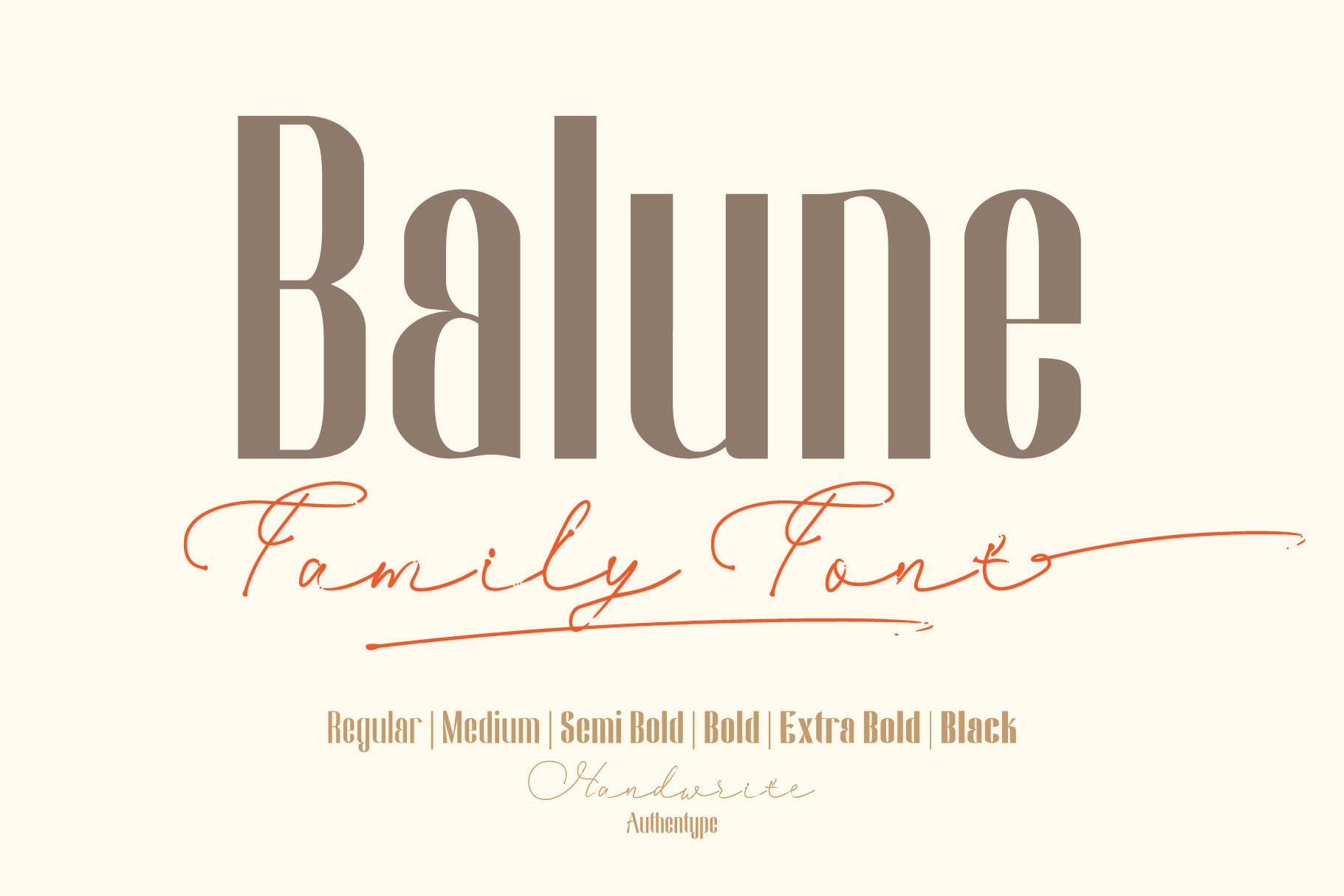
Balune Family Font
Balune Family Font created by Authen Type. This font features a classic and elegant style, perfect for:
Balune Family Font designs are very beautiful to use in branding designs for brochures, logos and invitations with a neat and varied font concept. Script font features a gorgeous handwritten style that infuses this beautiful script with authenticity and charm!